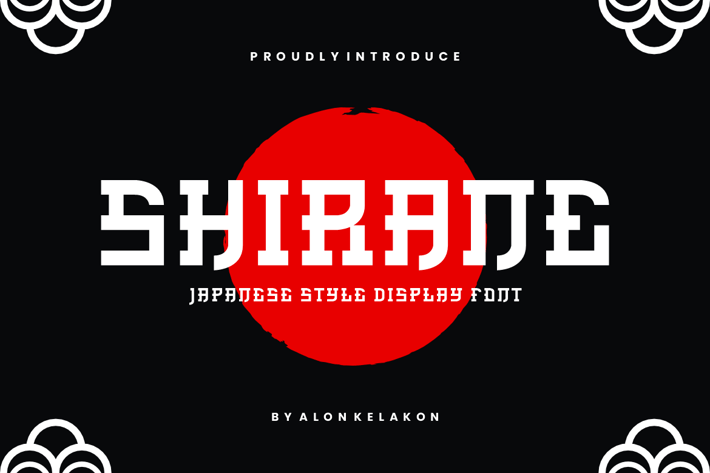
Shirane Japanese Font
Shirane Japanese Font Font is unique . Ready to use for your design like labeling, movie sceen, poster, movie title, gigs, album covers, logos, and much more.